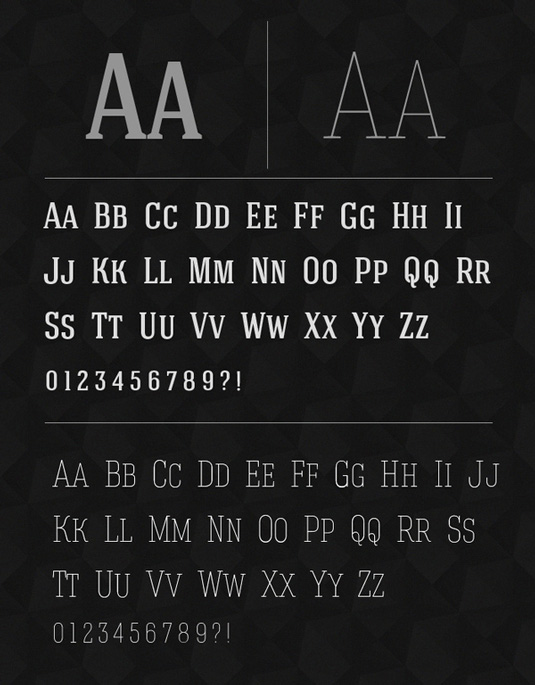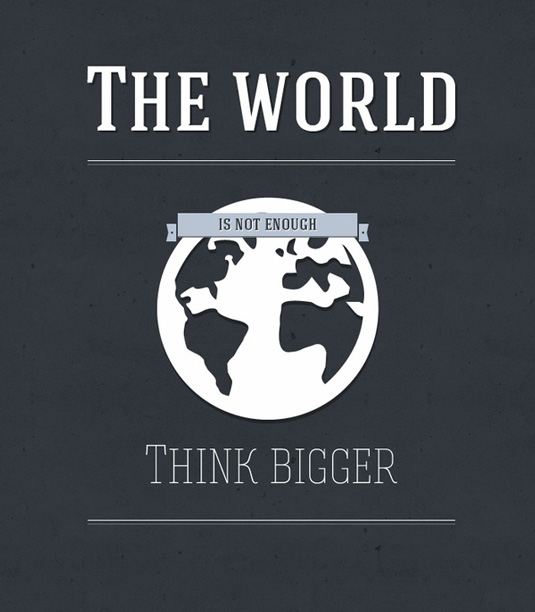
Font of the day: Hagin
Every day we showcase the best fonts on the web. Today it's Hagin from Fontfabric, which is totally free to download.
Hagin from Fontfabric
Independent type foundry Fontfabric regularly appears in our font of the day posts, offering a selection of beautiful typefaces with Hagin being a prime example. The free design was 'constructed with strong geometric forms in ”old school” style'.